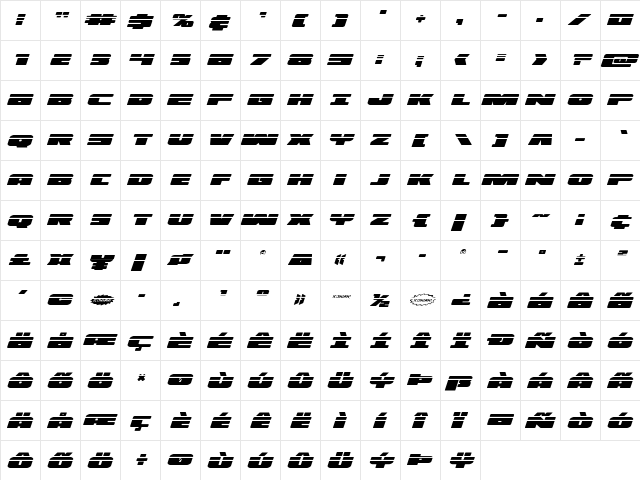
Illumino Laser Italic Italic
Design Context for Illumino Laser Italic Typeface
Illumino Laser Italic is a composed and adaptable typeface that performs quietly and consistently across a wide range of design contexts. The dynamic lean of this cut emphasises speed and emphasis in any layout.
Pro Tip: Try Illumino Laser Italic for annotation and caption copy alongside an upright companion — the contrast in angle creates a dynamic but ordered typographic system.